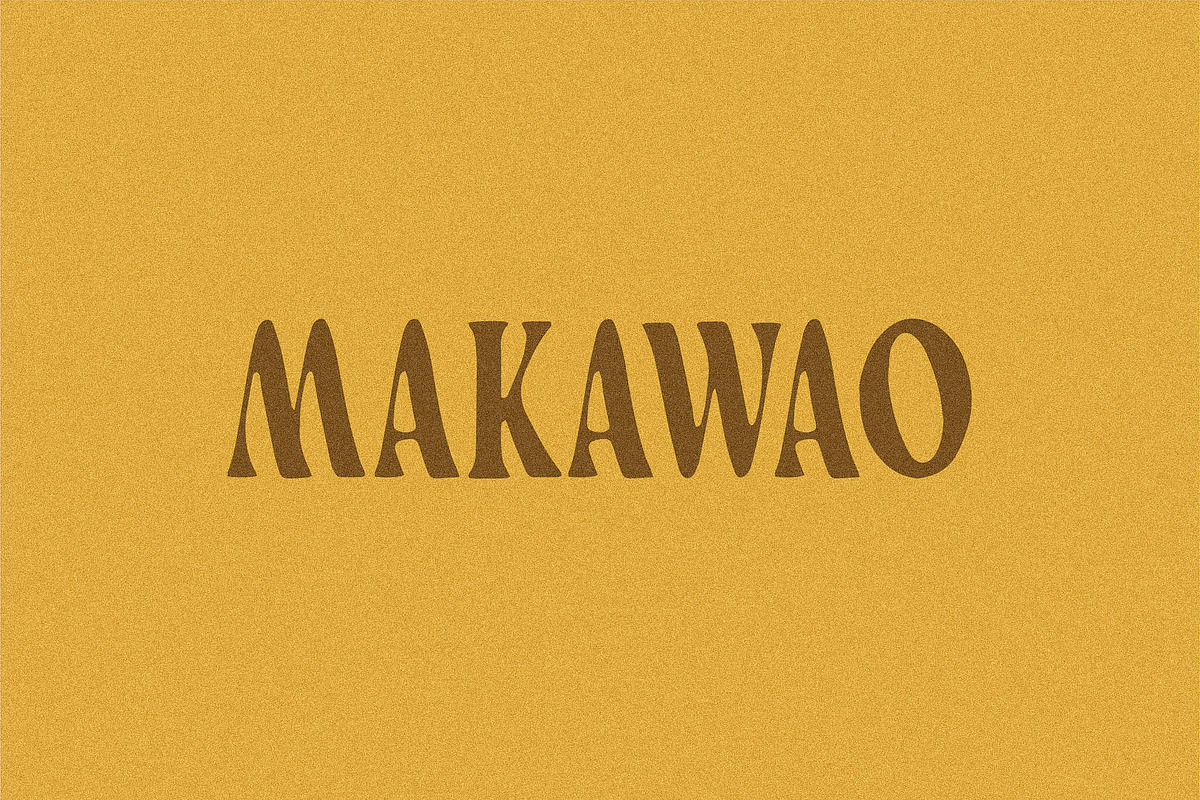
Introducing Makawao — a fresh, breezy addition to the world of modern typography. Designed for creators who value simplicity, clarity, and a touch of effortless charm, Makawao brings a relaxed yet intentional energy to every design. Whether you’re crafting a logo, building a brand identity, designing packaging, or creating social media visuals, Makawao delivers a clean, approachable aesthetic that speaks volumes without saying too much.
This isn’t just another typeface — it’s a mindset. Makawao was built for those who appreciate the power of minimalism. With its uncluttered forms and thoughtful spacing, it invites the eye to rest, breathe, and engage. Its laidback vibe isn’t lazy — it’s deliberate. Every line is crafted to feel natural, every shape balanced for visual comfort. It’s the font version of a calm morning coffee: simple, smooth, and just the right amount of presence.
What Makes Makawao So Versatile?
With its core design centered around uppercase letters, Makawao provides a bold, confident look that demands attention without overwhelming. It’s the ideal companion for headlines, icons, signage, and any project where clarity and tone matter. The font’s minimalist structure ensures it works across a vast range of styles — from high fashion to indie startups, from streetwear to luxury branding.
- Complete Uppercase Alphabet: Clean, strong uppercase forms that stand out in headlines, badges, and titles.
- Full Number Set: Support for digits 0–9, perfect for labels, dates, prices, and data-driven designs.
- Basic Punctuation: Includes essential symbols like periods, commas, hyphens, and quotation marks — enough for clear, functional text.
Design with Intention, Express with Ease
Makawao is built for designers who want to do more with less. Its clean, unadorned style gives you the freedom to focus on layout, color, and context — not competing typefaces. The font’s subtle rhythm and balanced proportions create a sense of harmony, making your visuals feel curated rather than crowded.
It’s not just about looks — it’s about tone. Makawao communicates approachability, confidence, and authenticity. It’s perfect for brands that want to feel human, modern, and connected to their audience. Whether you’re launching a new product, designing a poster, or writing a tagline, Makawao ensures your message lands with the right vibe.
Perfect For: Real-World Creative Projects
Here’s where Makawao shines in the wild:
- Branding & Logos: Create memorable, minimalist logos that feel modern and timeless.
- Social Media Graphics: Stand out on Instagram, TikTok, or LinkedIn with clean, bold text that captures attention.
- Product Labels & Packaging: Add a clean, elegant touch to boxes, bottles, or tins.
- Signage & Wayfinding: Use in stores, events, or galleries for legible, stylish labels.
- Web & App UI: Integrate into headers, buttons, and navigation for a sleek, minimalist feel.
Minimalism That Speaks Volumes
Makawao proves that less is more — not as a compromise, but as a choice. It doesn’t try to do everything. Instead, it does one thing exceptionally well: deliver a calm, confident, and stylish presence. It’s the font for designers who believe that true impact comes from restraint, clarity, and intention.